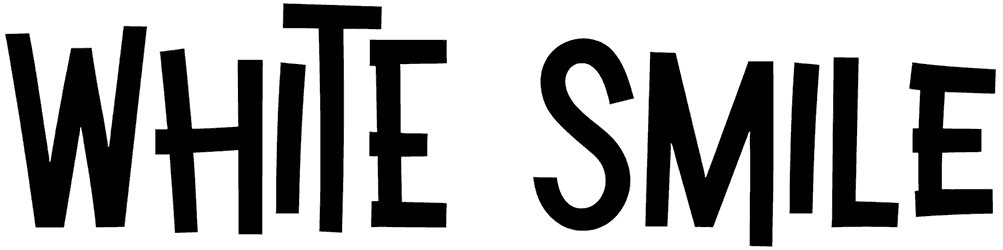
White Smile Font
If you want to design a project with the ability to convey amusement and fun to your audience, you are in the right place, and White Smile font can do the trick. Its unbalanced characters make them more exclusive and entertaining.
This cartoon font doesn’t include lowercase letters, but it supports two uppercase. It will be perfect for comedy titles, video games, book covers, T-shirt prints, and snack packages.